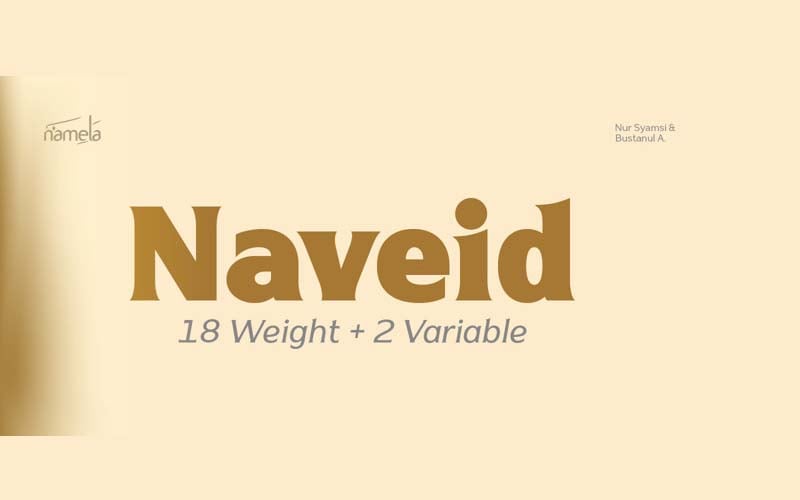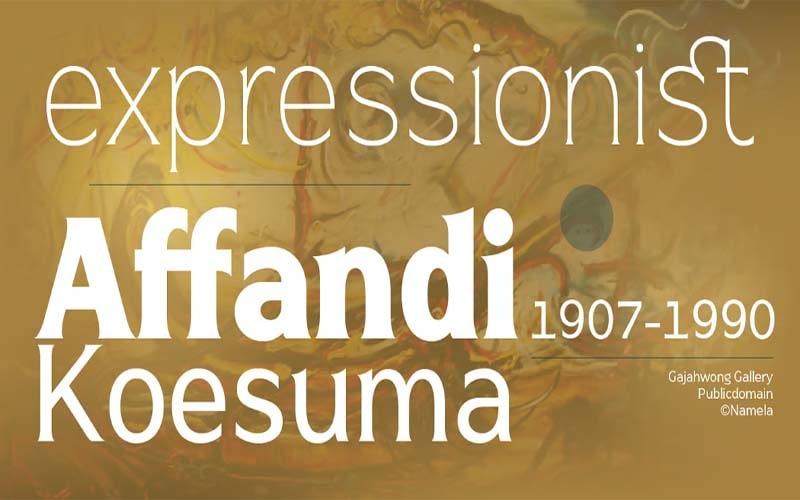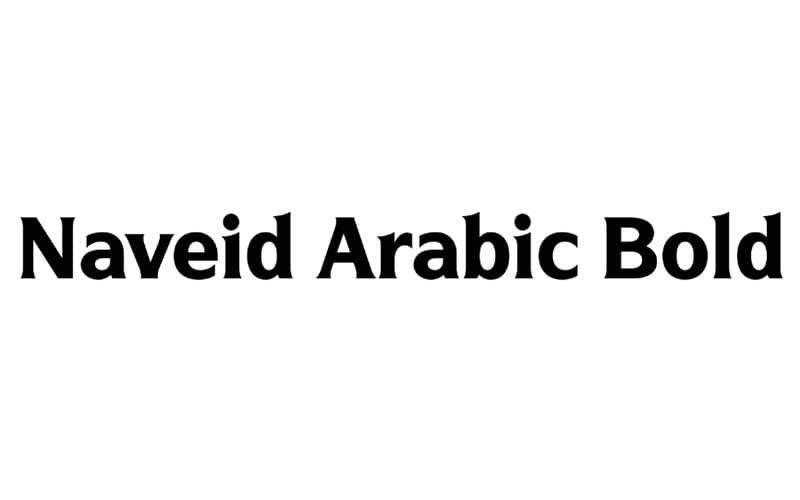
Naveid Arabic Bold is a great display and serif typeface. This clean, bold, and stylish typeface makes your designs more elegant.
Nur Syamsi and Bustanul Arifinis were the primary designers who initially acquired control of this elegant typeface and published it by Namela. Use this typeface to create more attractive designs.
The subfamily of this font is regular and contains 18 unique styles such as “Naveid Arabic Bold Regular”, “Naveid Arabic Bold Light”, “Naveid Arabic Bold Black”, “Naveid Arabic Bold Medium”, and many more.
This magnificent font includes 26 upper-case and lower-case letters of the alphabet, numerals, accented special characters, and all caps. Let’s look at the texture for a moment.